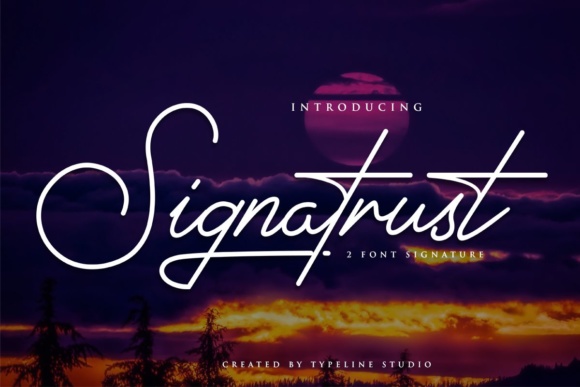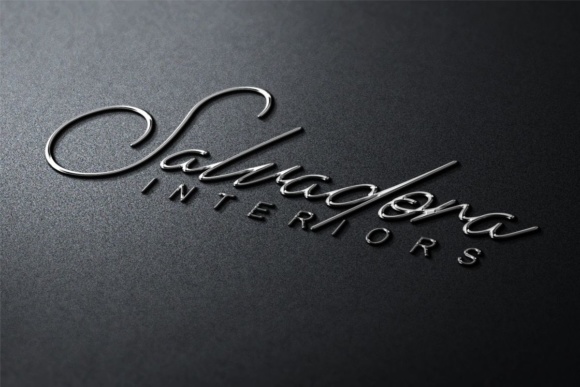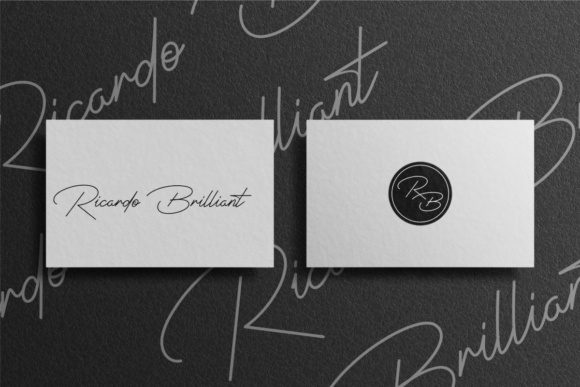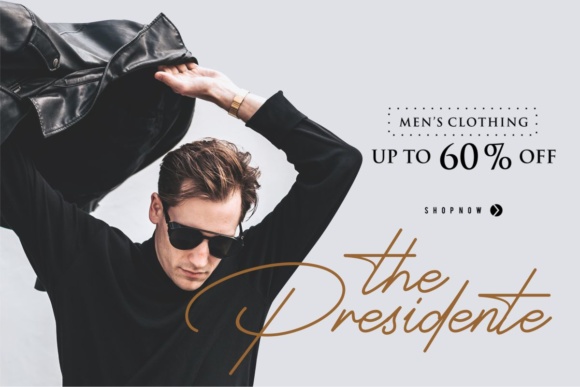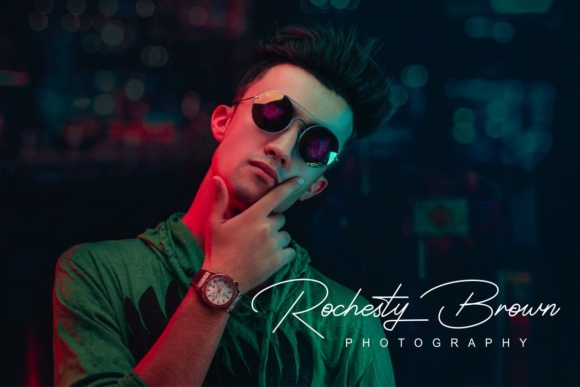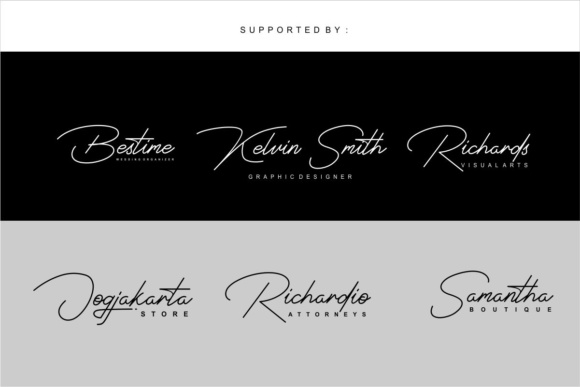
Signatrust Font
About Signatrust Font
The Signatrust is a luxurious font which comes in two weights. It has a charming vibe and is perfect for writing names, logos, weddings, letterheads, and much more!